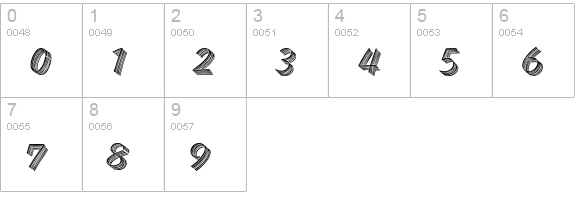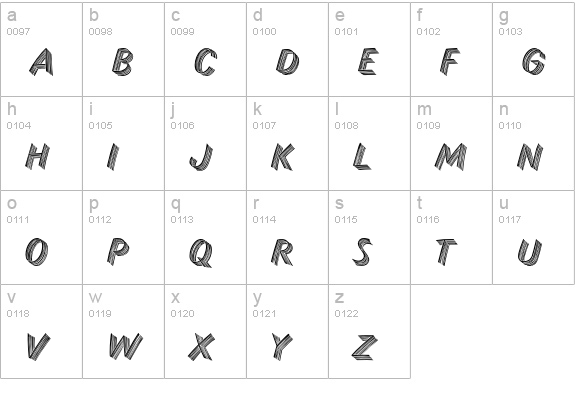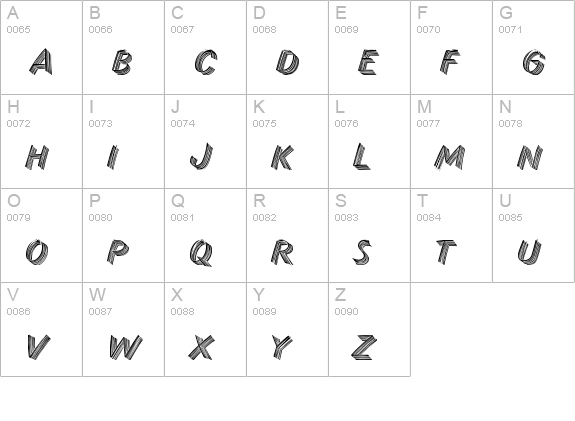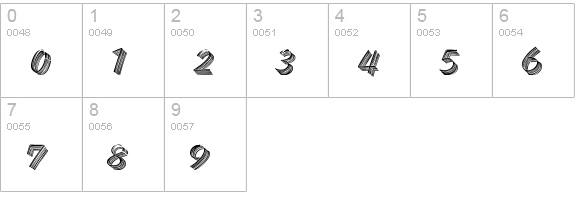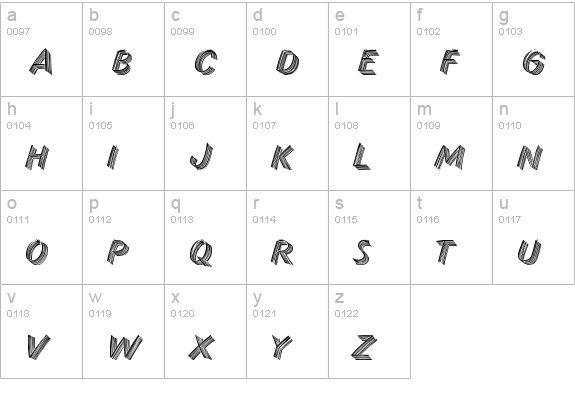
Skid Row Std font is a captivating and edgy typeface that will bring a rebellious touch to any design project. With its bold and jagged letterforms, this font exudes a raw and untamed energy that is perfect for posters, album covers, and streetwear branding. Designed with utmost attention to detail, Skid Row Std font captures the essence of the urban underground scene. Its distressed appearance and irregular lines give it a gritty and weathered look, adding character and authenticity to your designs. But what sets Skid Row Std font apart is its accessibility. This unique typeface is not only visually striking, but it is also freely available to download at FontsMarket.com. Whether you're a professional designer working on a high-profile project or an amateur enthusiast looking to experiment with typography, Skid Row Std font offers you the opportunity to enhance your creativity without any financial burden. By making Skid Row Std font free, we believe in democratizing design and making it accessible to everyone. We understand the importance of having a diverse range of resources at your fingertips, without compromising on quality. FontsMarket.com strives to provide a platform that empowers designers and enthusiasts alike, offering them an extensive collection of fonts to choose from, all at no cost. So, unleash your rebellious side and infuse your designs with the urban edge of Skid Row Std font. Download it for free today at FontsMarket.com and explore the limitless possibilities it brings to your projects. Let your creativity run wild with this captivating typeface that embodies the essence of the streets.